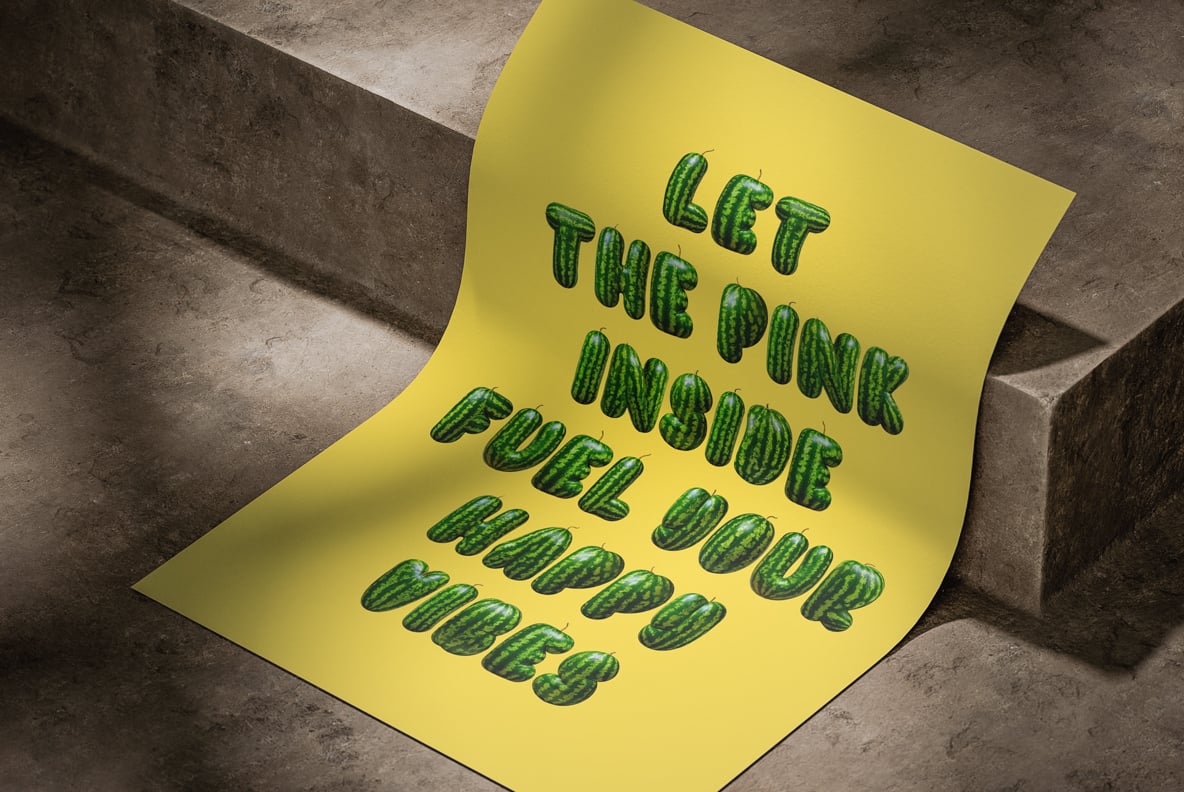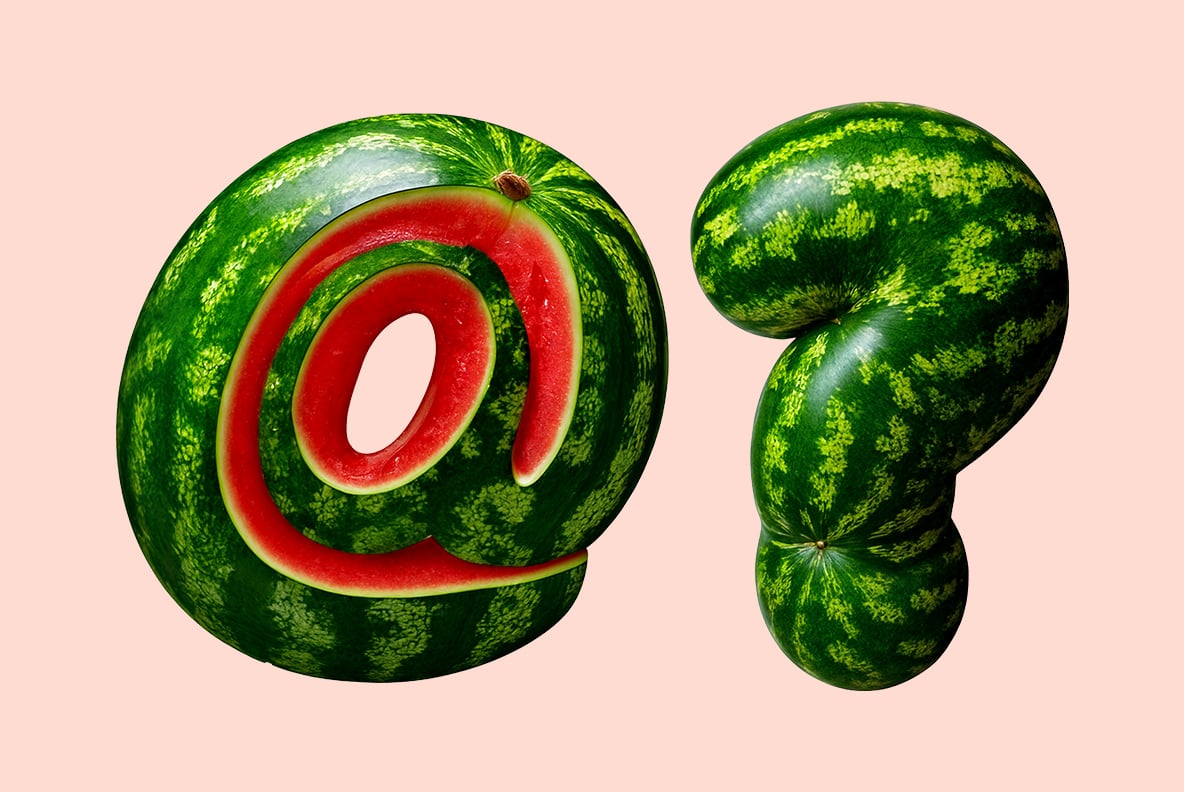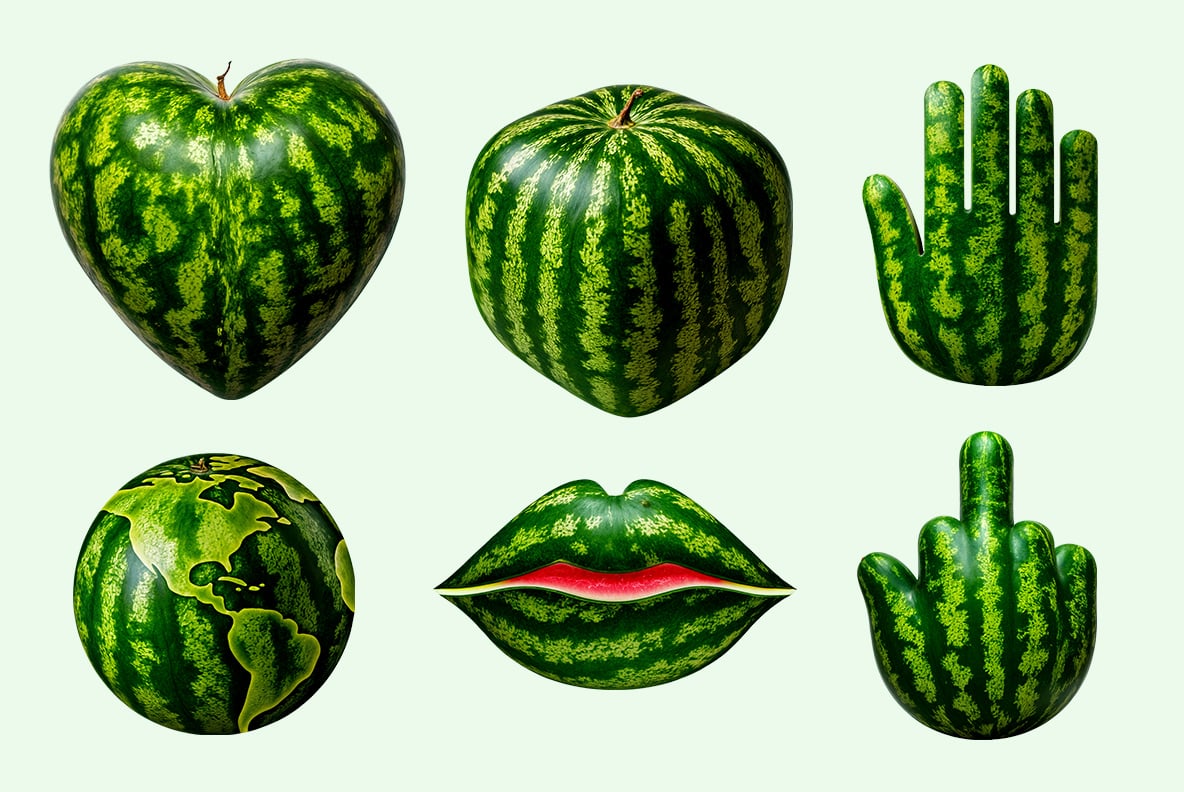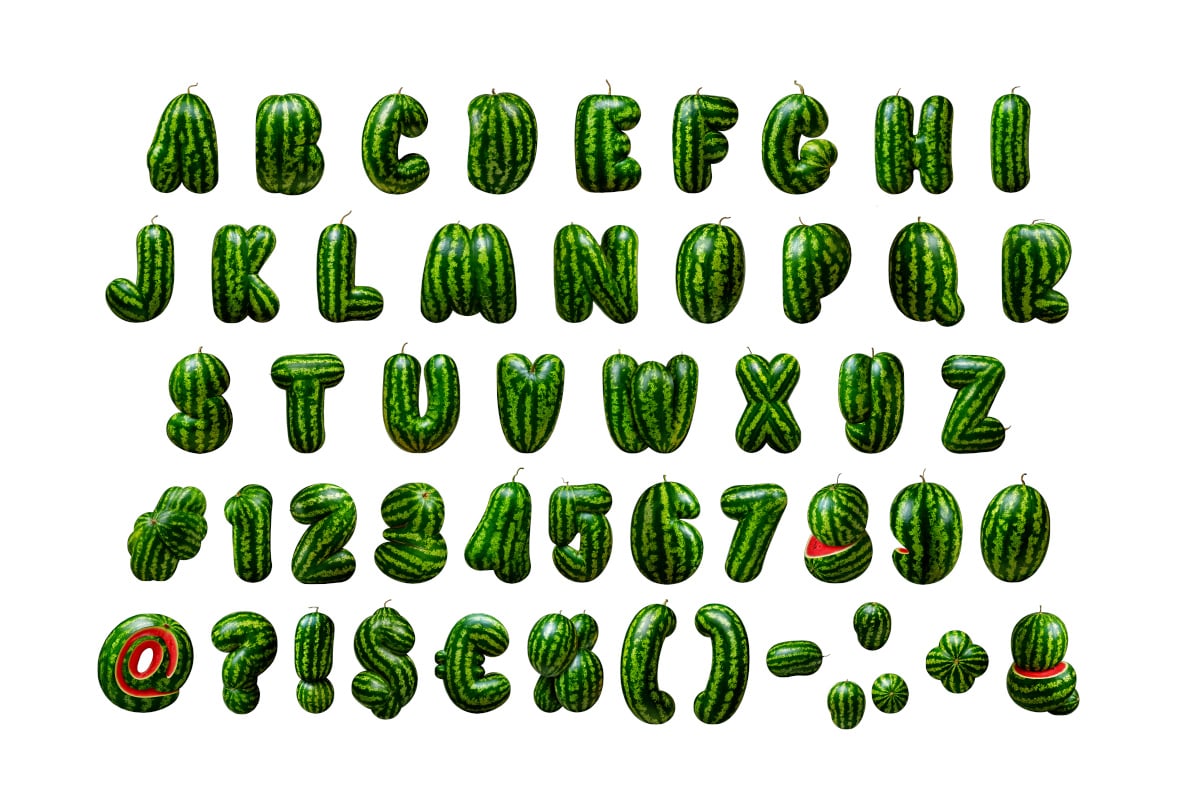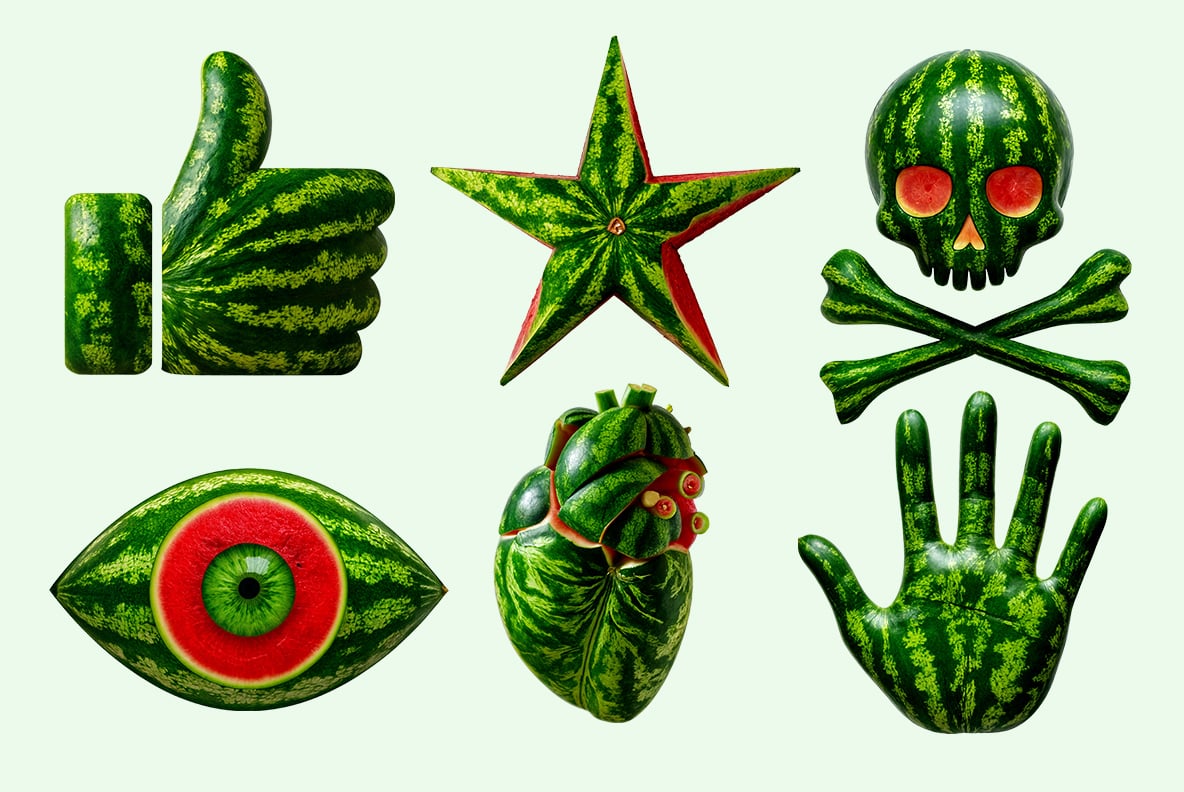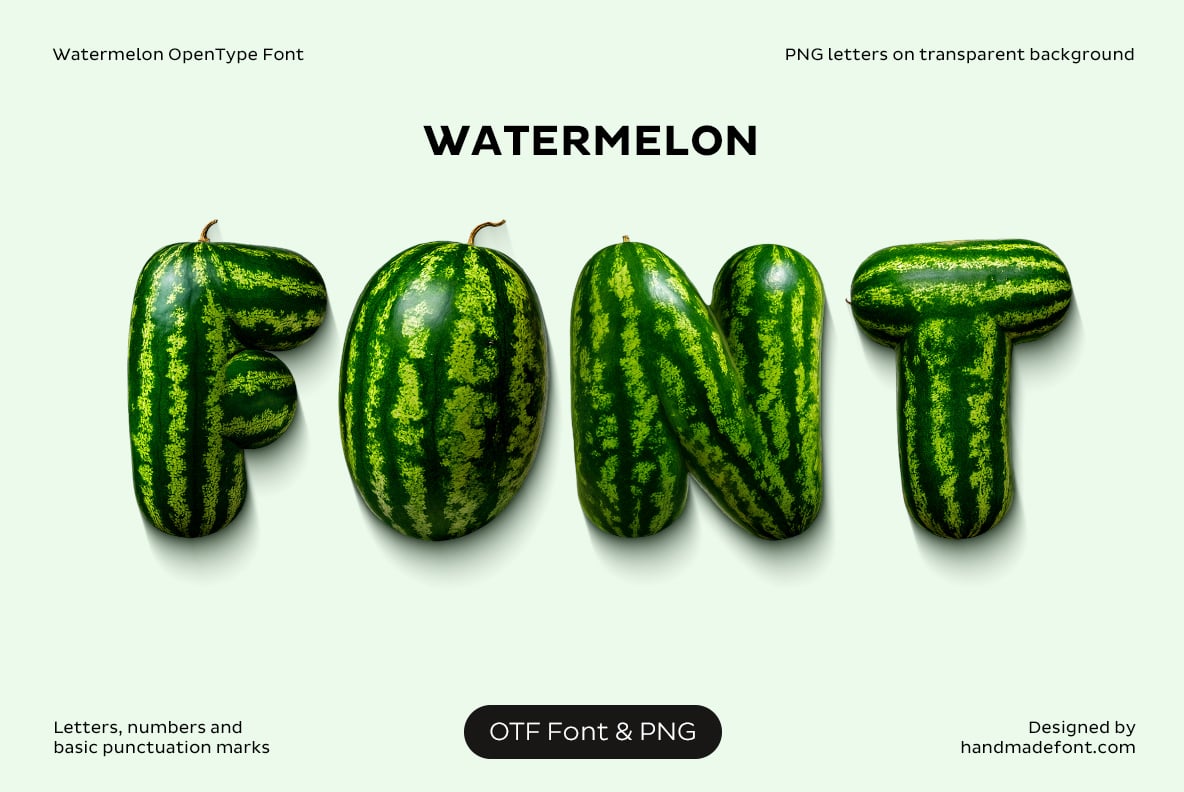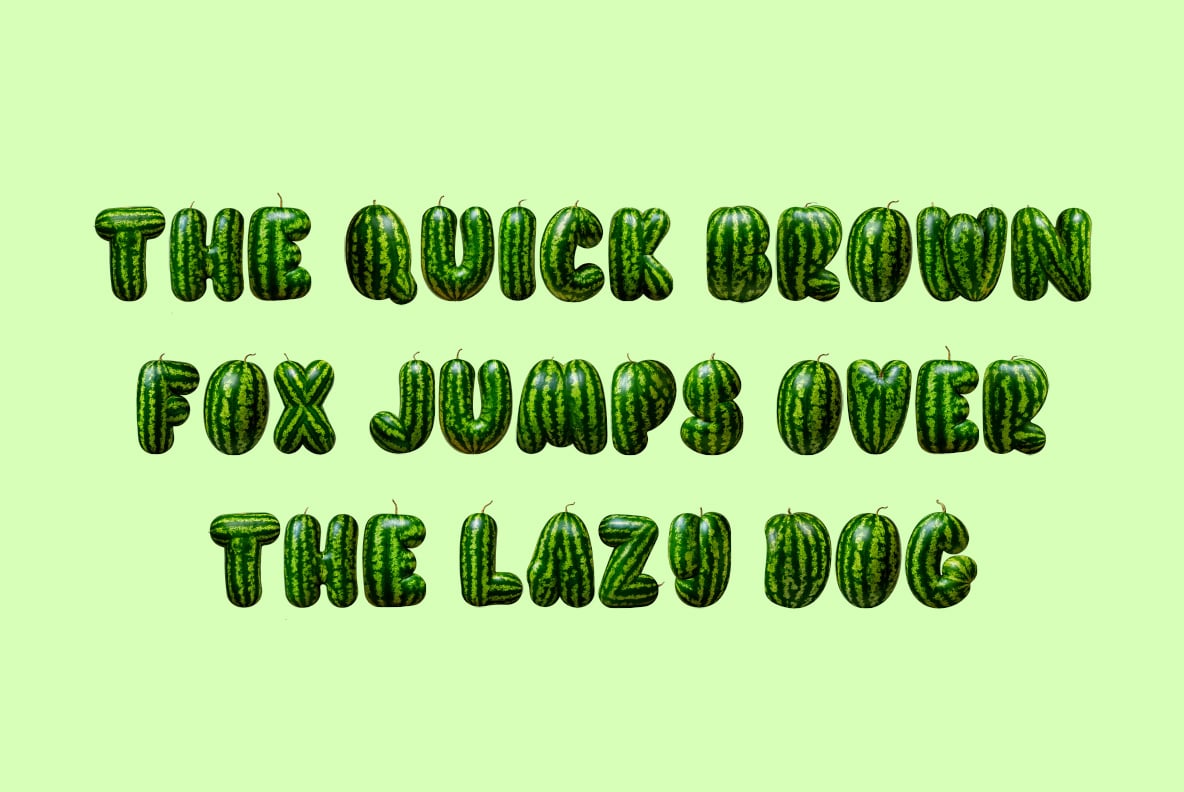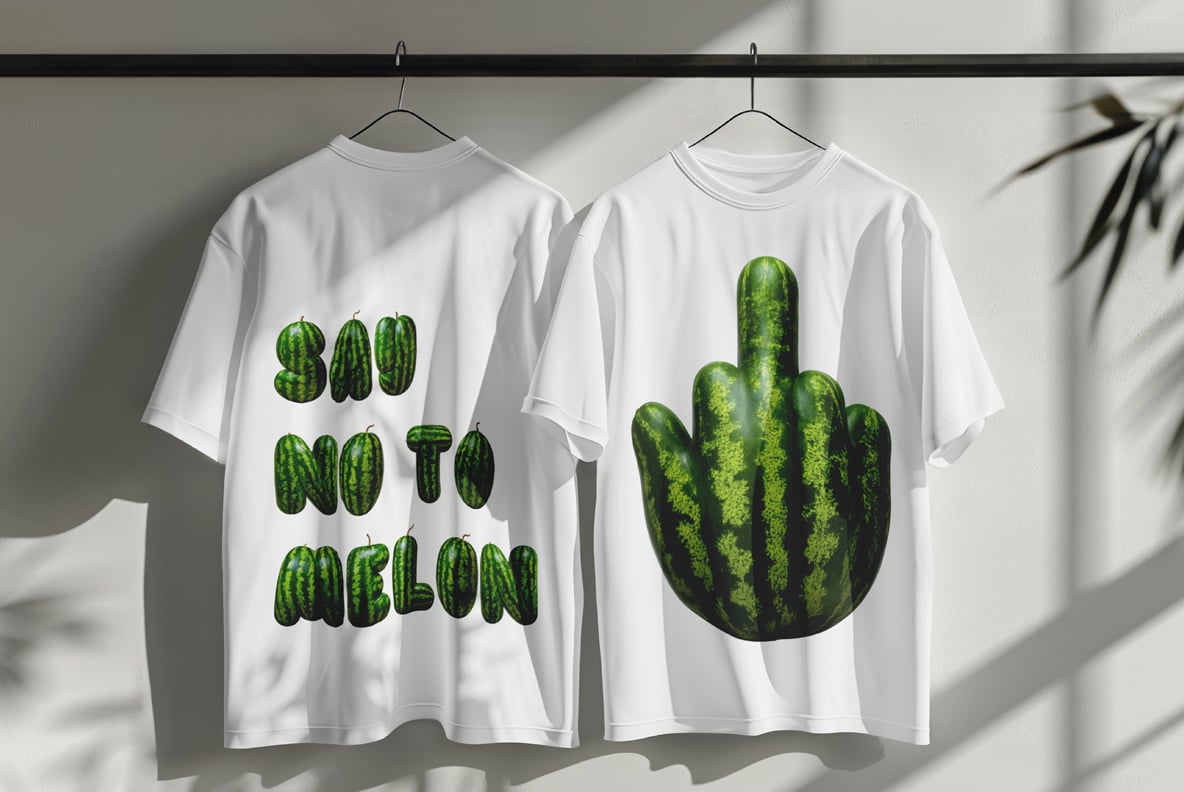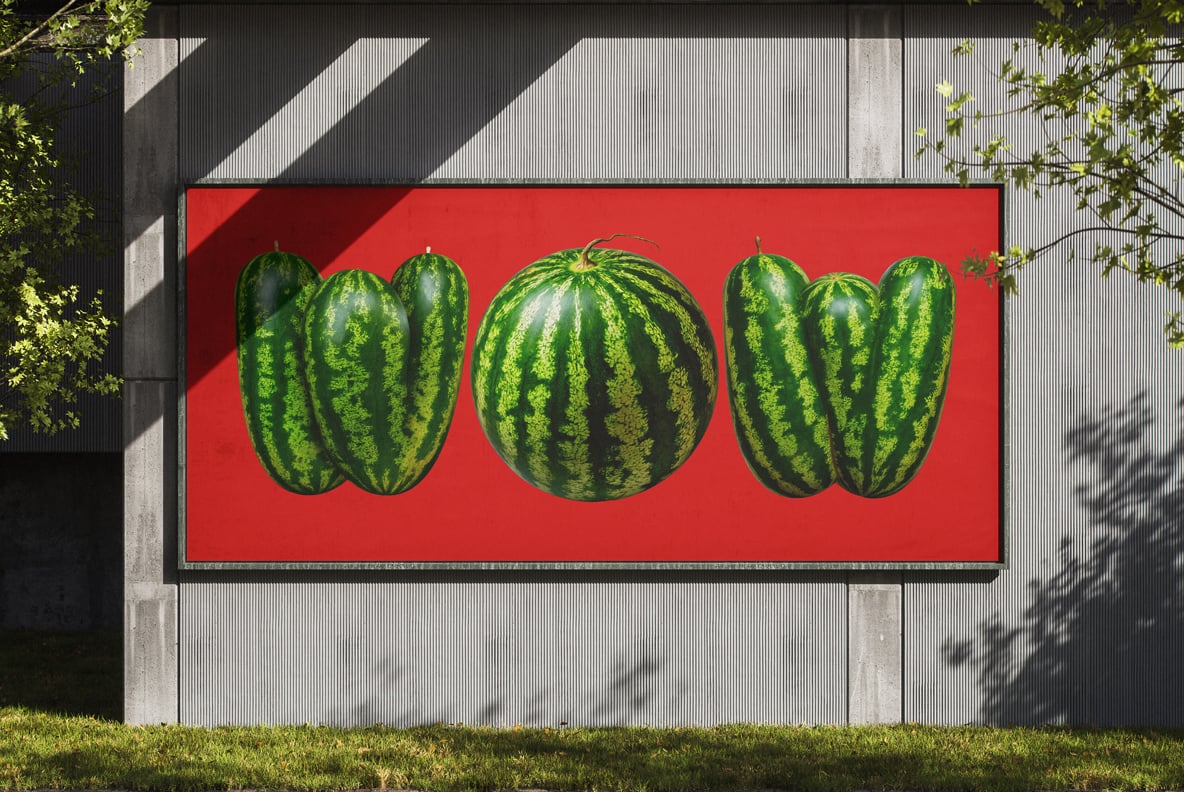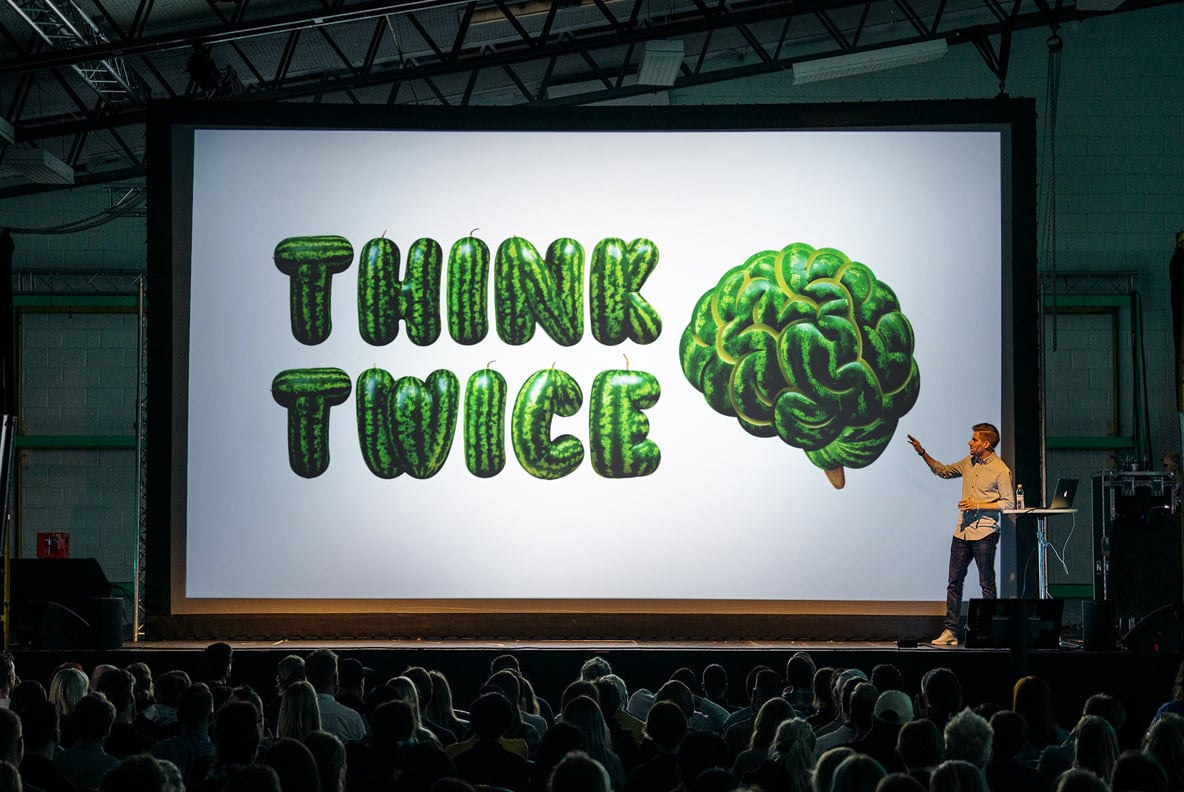
Watermelon Font
Watermelon Font*is a delightfully juicy, summer-inspired typeface that turns every letter into a luscious, green-striped watermelon. With playful curves and an organic, hand-crafted feel, this font screams fresh, fun, and refreshing. Each character is a bold, fruity statement, perfect for adding a splash of humor and sunshine to your designs. Ideal for food branding, seasonal posters, or social media campaigns that want to stand out, Watermelon Font is a celebration of everything sweet and summery. It’s not just a font – it’s a whole mood, as vibrant and bold as a picnic in the park. Let your creativity grow!
A high definition OpenType Font. Contains uppercase characters, numerals and basic punctuation. (Draw height roughly 800 pixels). All letters and glyphs that comprises this font you can see on the preview.